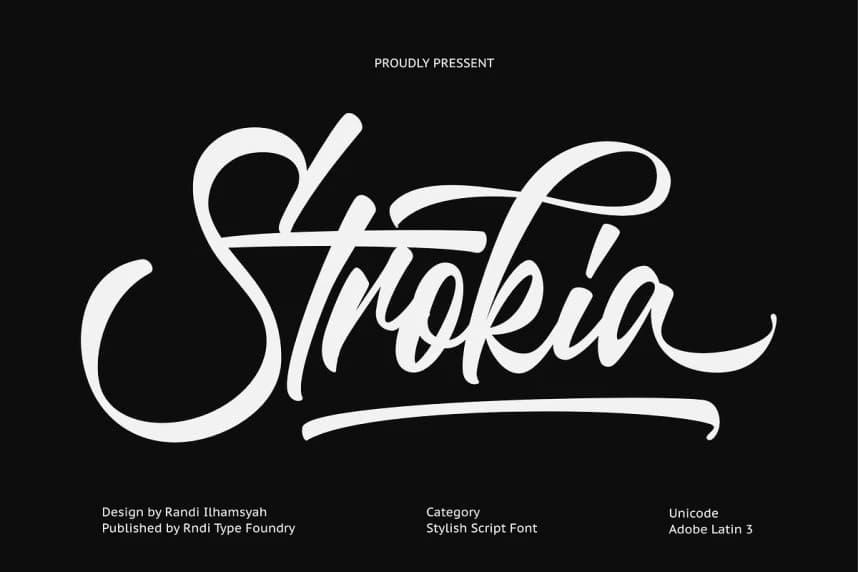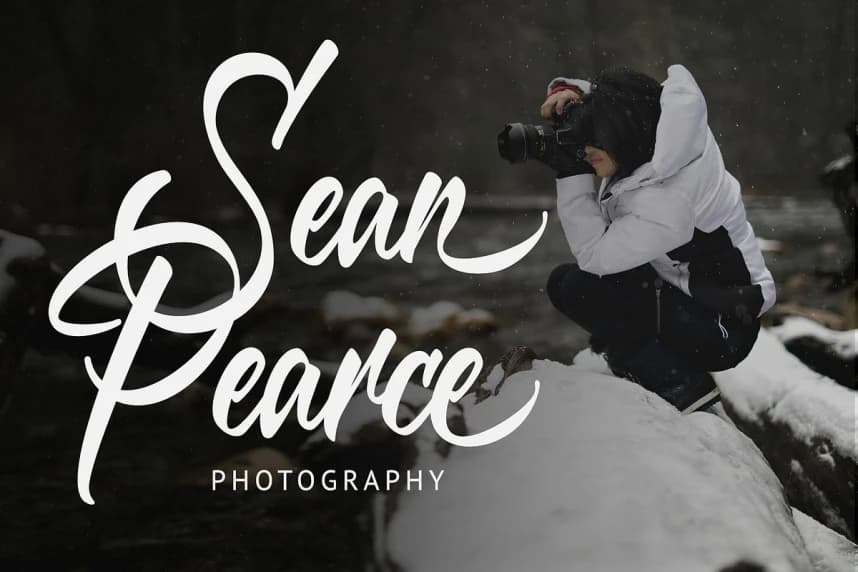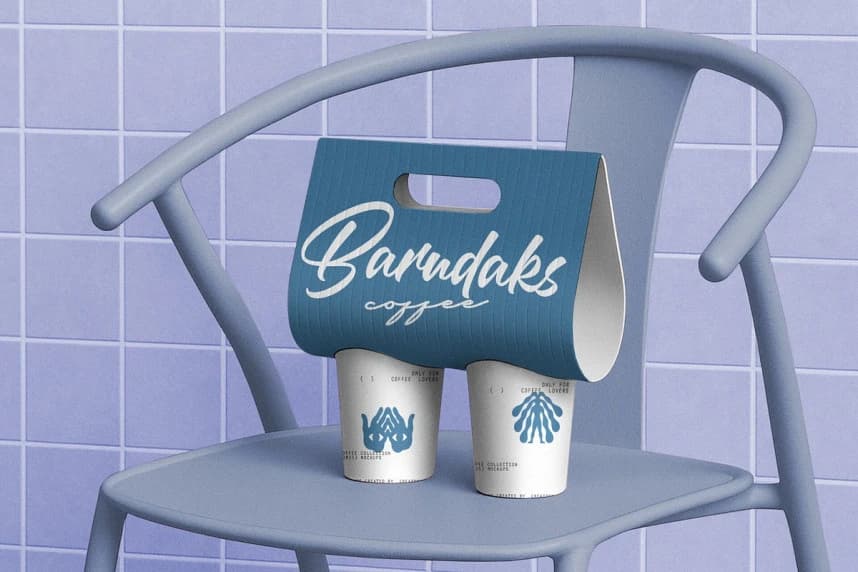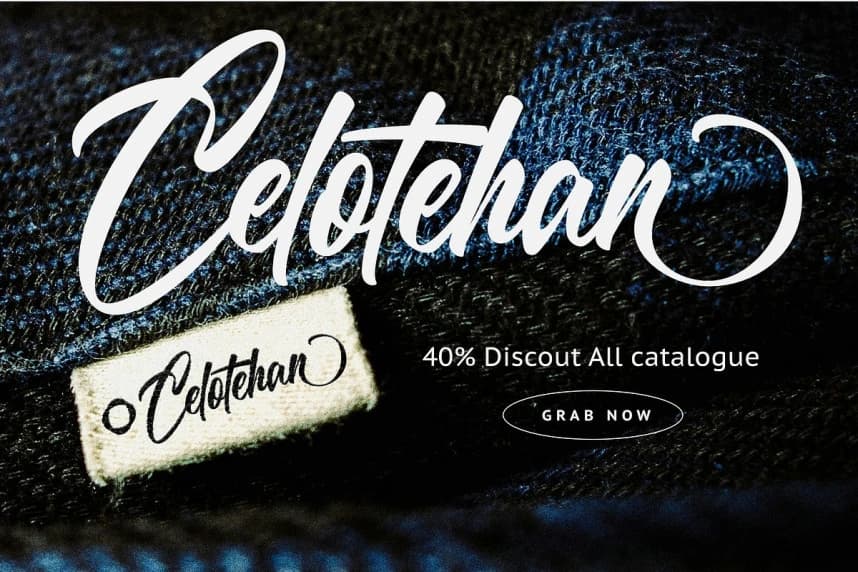
Strokia Script Font
Strokia Script Font is a bold, expressive brush script font designed for creatives who want their work to stand out. Inspired by the fluid motion of hand-lettering, every stroke carries energy and personality — from the sweeping capitals to the smooth, connected lowercase.